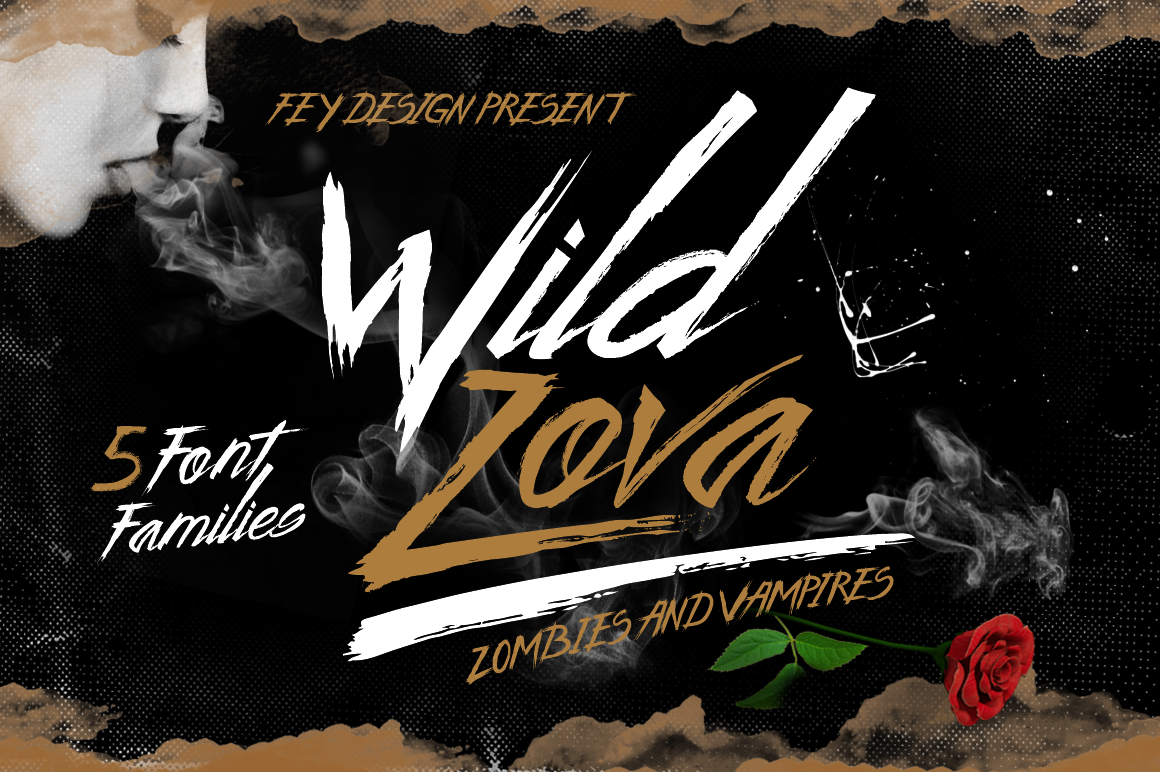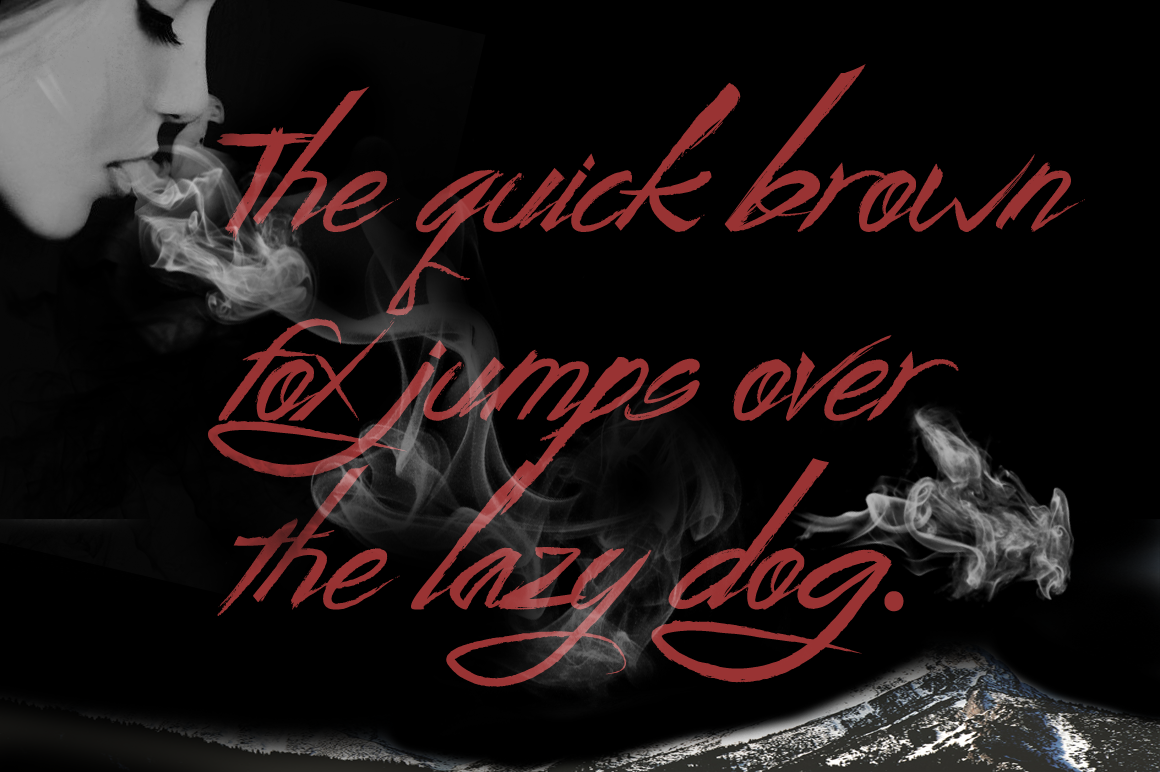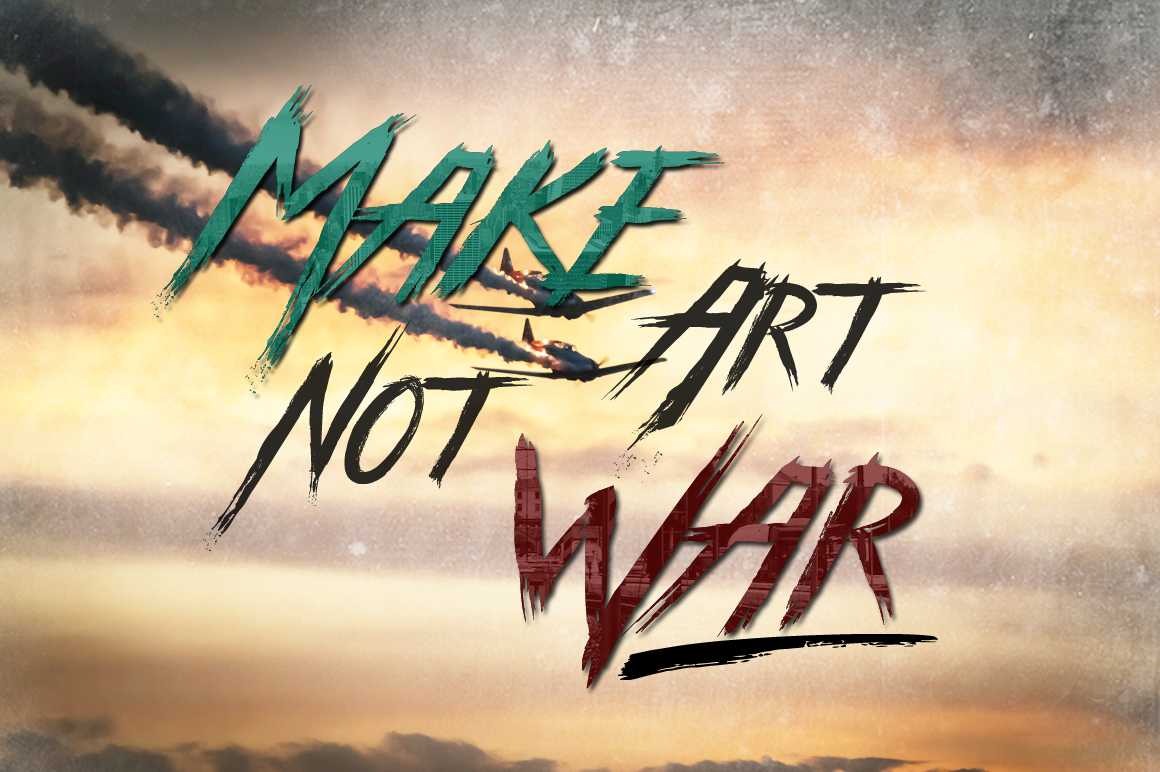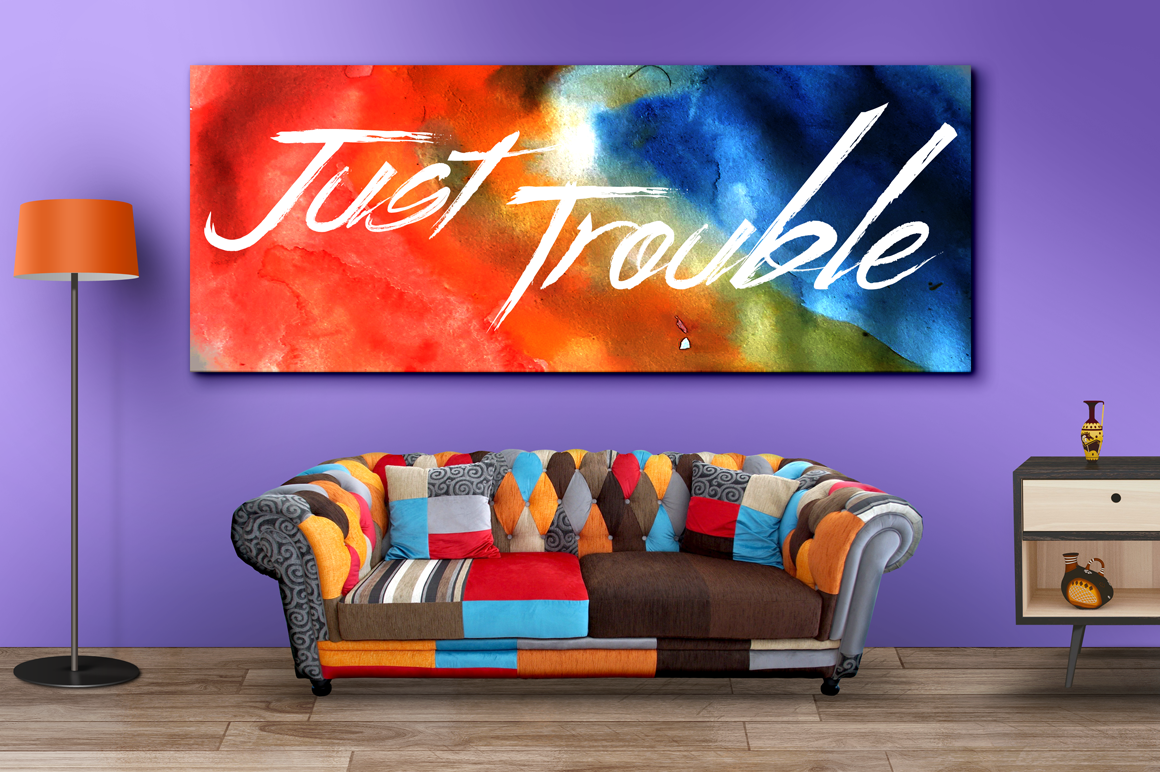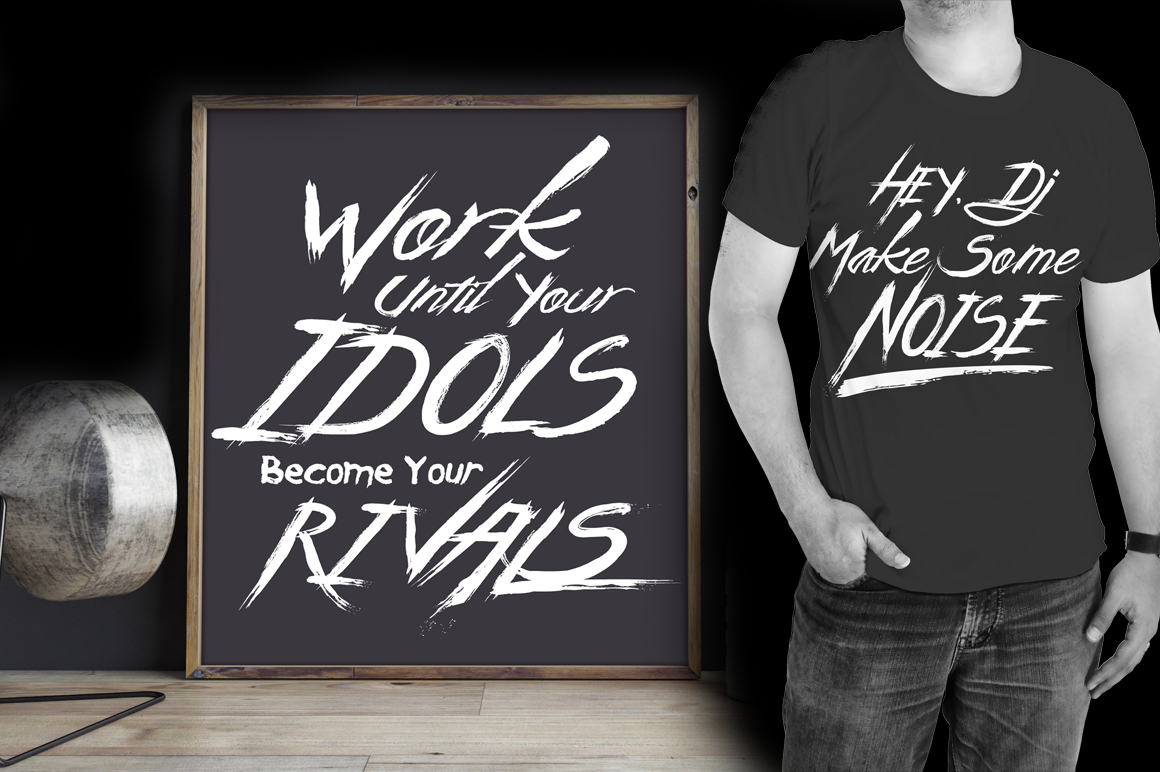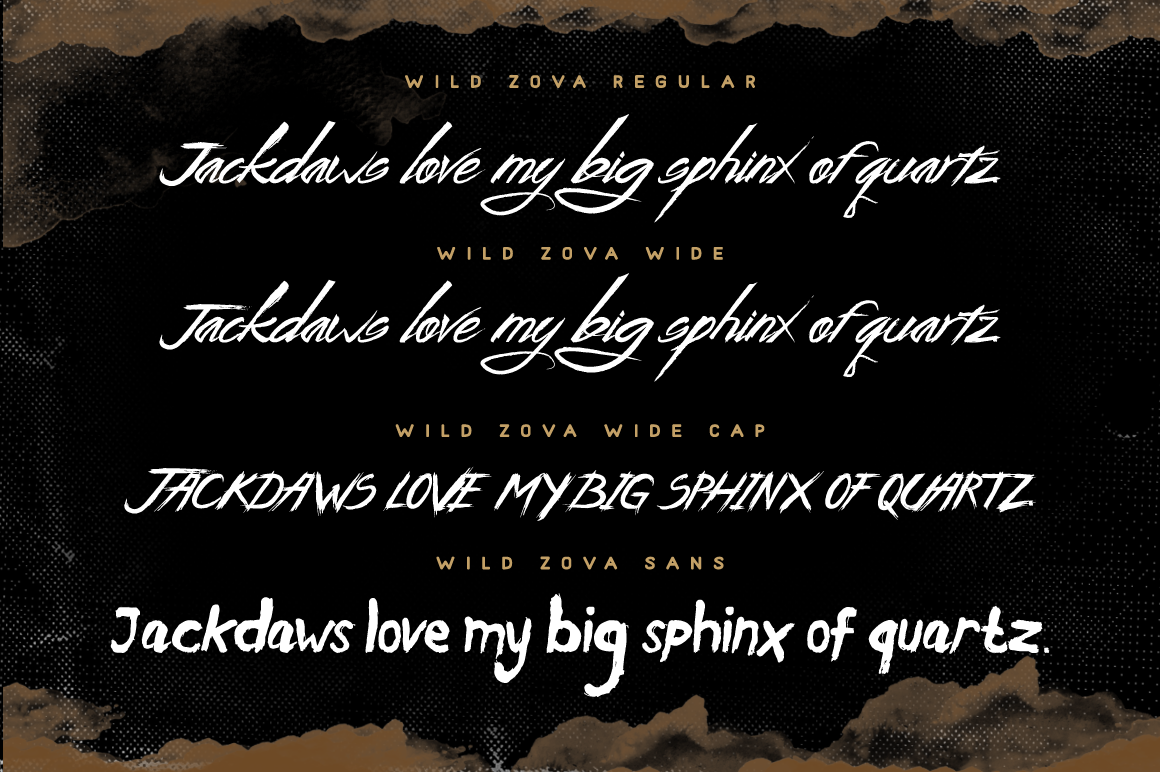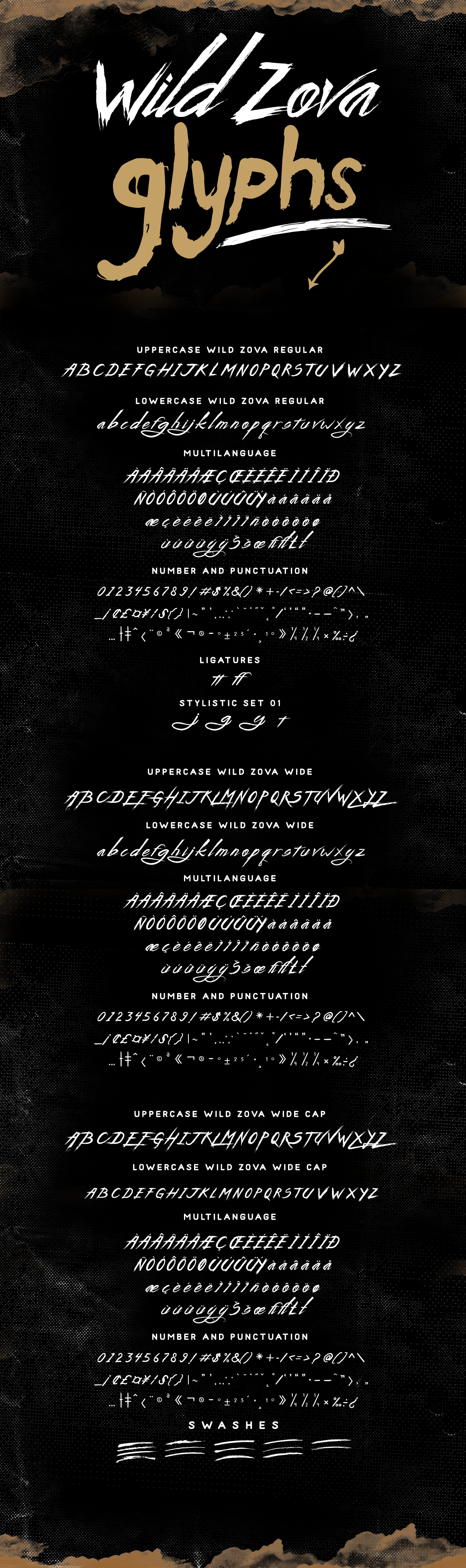
Wild Zova Font
About Wild Zova Font
Wild Zova is zombies and vampires inspired hybrid. This font is wholly inspired by the darkness that exists in this world. Messy and grungy with a painterly style, this is the perfect font for a wide range of alternative project types.